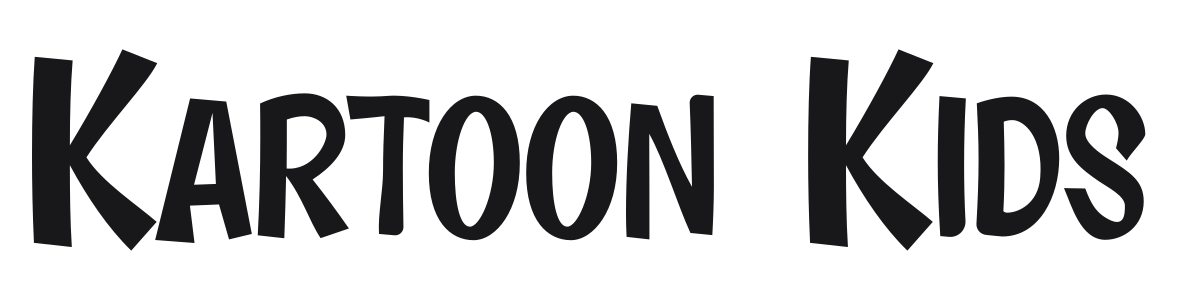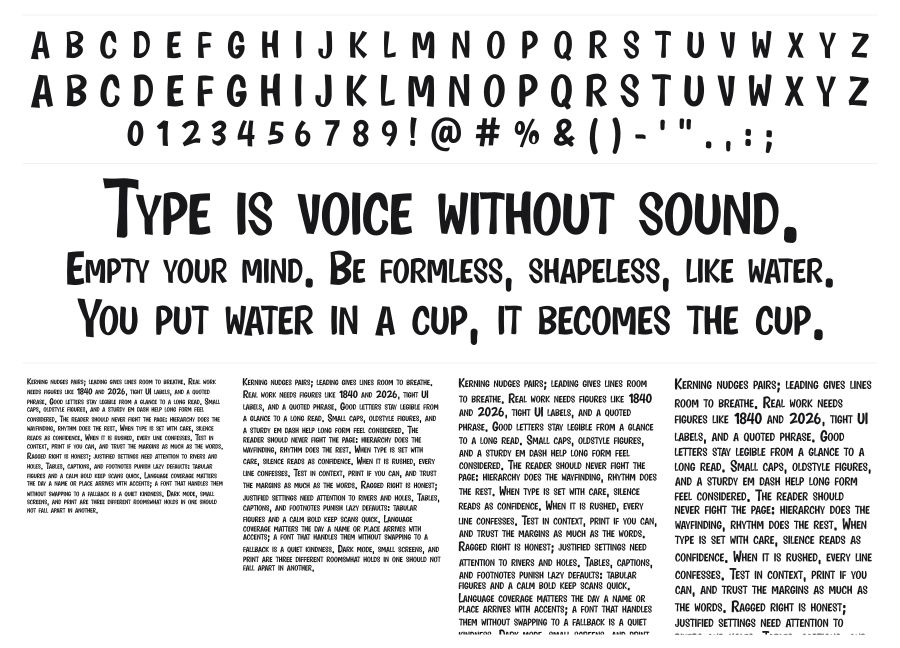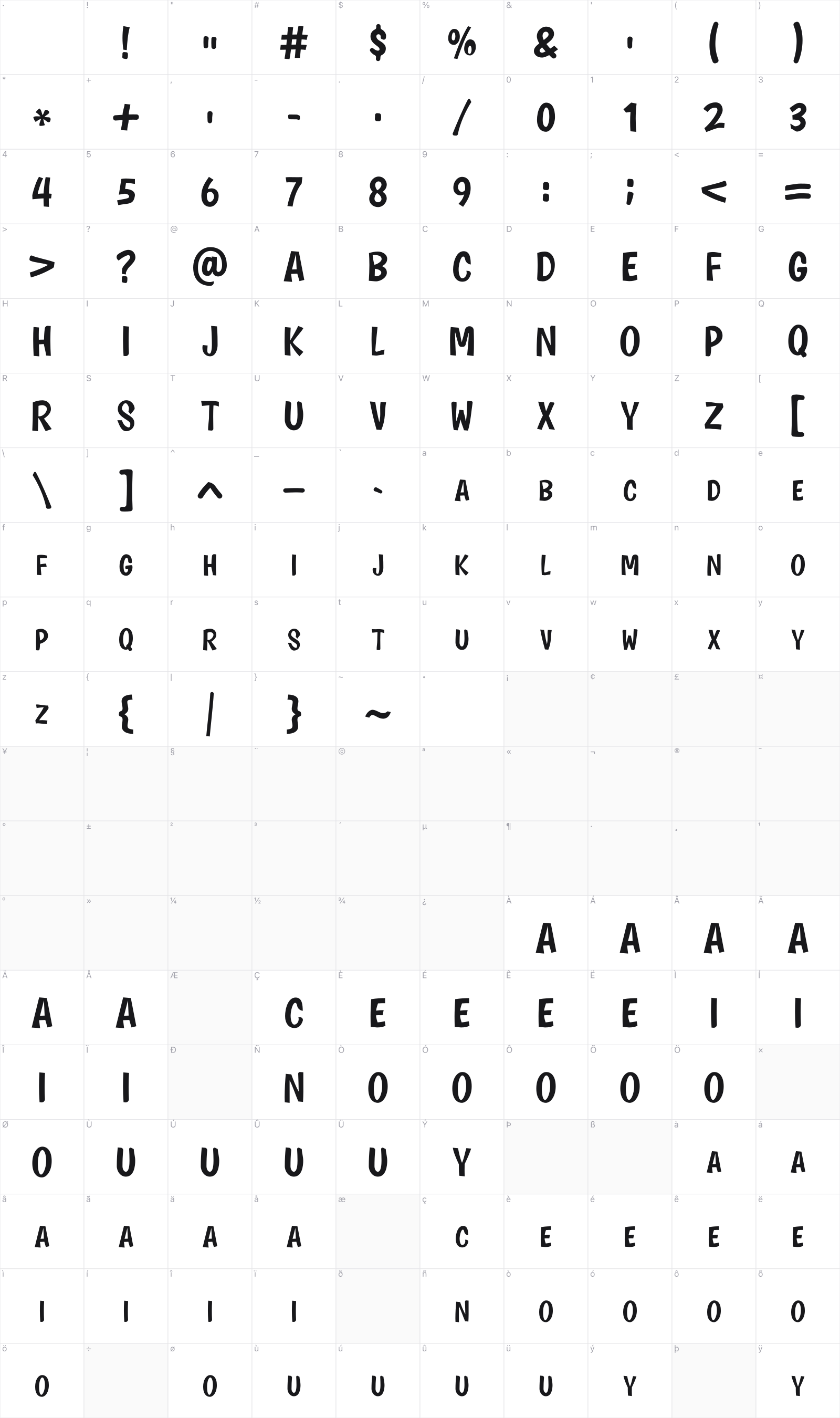
Kartoon Kids
Kartoon Kids is a bold, hand-drawn cartoon sans with deliberately wobbly strokes and uneven character shapes that feel loose and spontaneous. The irregular weight variation across the letters gives it a genuine hand-crafted energy rather than the stiffness of a mechanically drawn font. Strong at large sizes on packaging, posters, and anything aimed at a young audience.